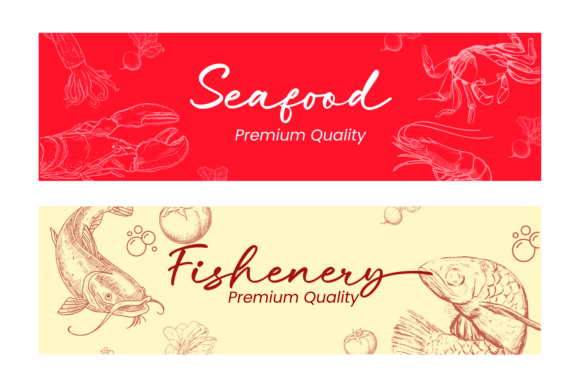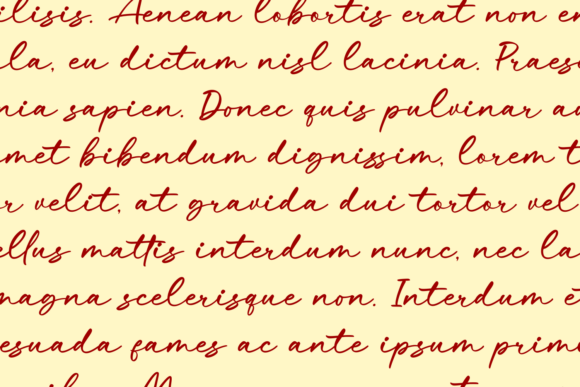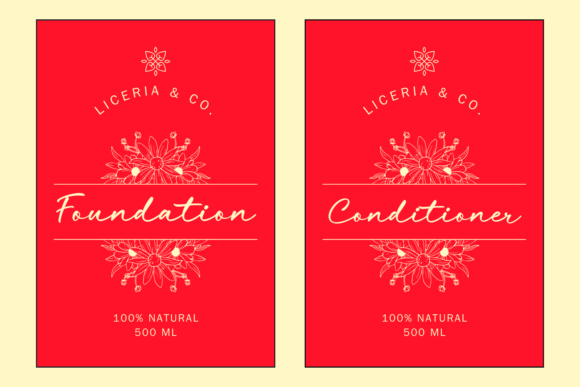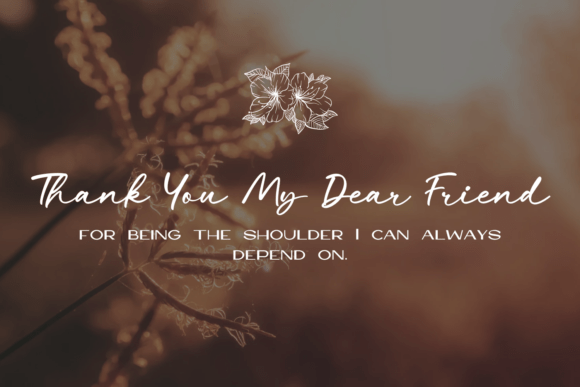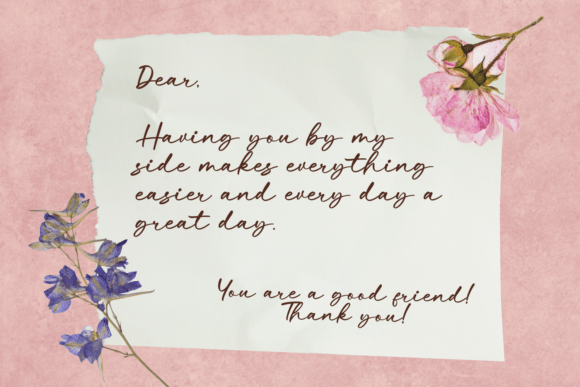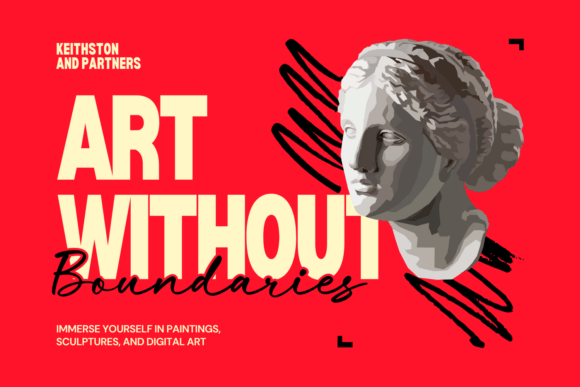
Experience the Art of Movement with Comtic Hiden Font
Are you a designer or crafter looking for a typeface that embodies elegance, sophistication, and a touch of artistic flair? Look no further than the Comtic Hiden font, an authentic brush-style typeface that captures the effortless grace of a fast-moving pen. This stunning font is characterized by its sweeping horizontal extensions and elegant, low-profile letterforms that create a sense of speed and refinement.
The Unique Characteristics of Comtic Hiden Font
The Comtic Hiden font is a masterclass in typographic design, boasting a range of distinctive features that set it apart from other typefaces. Its sweeping horizontal extensions give the font a sense of dynamism and movement, as if the letters are gliding effortlessly across the page. The elegant, low-profile letterforms add a touch of sophistication and refinement, making this font perfect for luxury signatures, high-end fashion branding, and cinematic title sequences where elegance is paramount.
The Perfect Font for Luxury Branding and Design
The Comtic Hiden font is the perfect choice for designers and crafters looking to add a touch of luxury and sophistication to their work. Its authentic brush feel brings a level of prestige and artisanal quality to any digital canvas, making it ideal for high-end fashion branding, luxury packaging, and exclusive event invitations. The font’s fluid nature also makes it an excellent choice for pairing with wide-spaced serif fonts to achieve a classic, editorial aesthetic.
Adding a Personal Touch with Comtic Hiden Font
One of the standout features of the Comtic Hiden font is its ability to add a personal touch to any design. Use this font to create stunning photography watermarks, luxury packaging, or high-end event invitations that reflect your unique style and aesthetic. The font’s unique rhythm and elongated tails allow it to serve as a decorative element in its own right, adding an extra layer of visual interest to any design.
Design Applications for Comtic Hiden Font
The Comtic Hiden font is a versatile typeface that can be used in a wide range of design applications, including:
- Luxury signatures and high-end fashion branding
- Cinematic title sequences and film credits
- Photography watermarks and exclusive event invitations
- Luxury packaging and high-end product design
- Editorial design and publishing
Why Choose Comtic Hiden Font?
So why choose the Comtic Hiden font for your next design project? Here are just a few reasons:
- Unique and distinctive design: The Comtic Hiden font boasts a unique and distinctive design that is sure to turn heads.
- Elegant and sophisticated: This font exudes elegance and sophistication, making it perfect for high-end branding and design.
- Authentic brush feel: The Comtic Hiden font has an authentic brush feel that brings a level of prestige and artisanal quality to any design.
- Versatile: This font can be used in a wide range of design applications, from luxury branding to editorial design.
In conclusion, the Comtic Hiden font is a stunning typeface that embodies elegance, sophistication, and a touch of artistic flair. Its unique characteristics, versatility, and authentic brush feel make it the perfect choice for designers and crafters looking to add a touch of luxury and refinement to their work. Whether you’re creating luxury signatures, high-end fashion branding, or cinematic title sequences, the Comtic Hiden font is sure to impress.